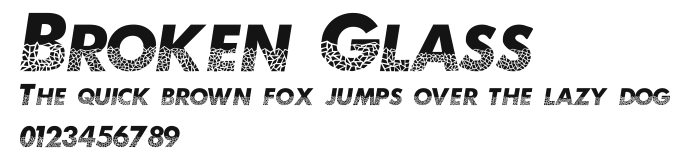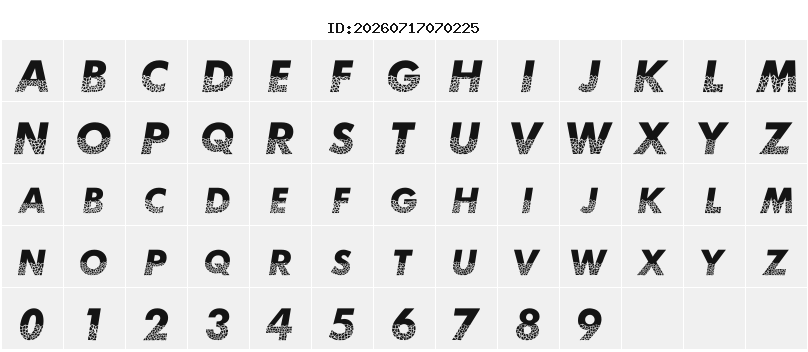
Broken Glass Preview
• Font Name: Broken Glass
• Full Font Name: Broken Glass
Broken Glass.ttf is a modern, elegant sans-serif font designed for ultimate readability and visual harmony. Perfect for branding, headlines, web design, and print materials.